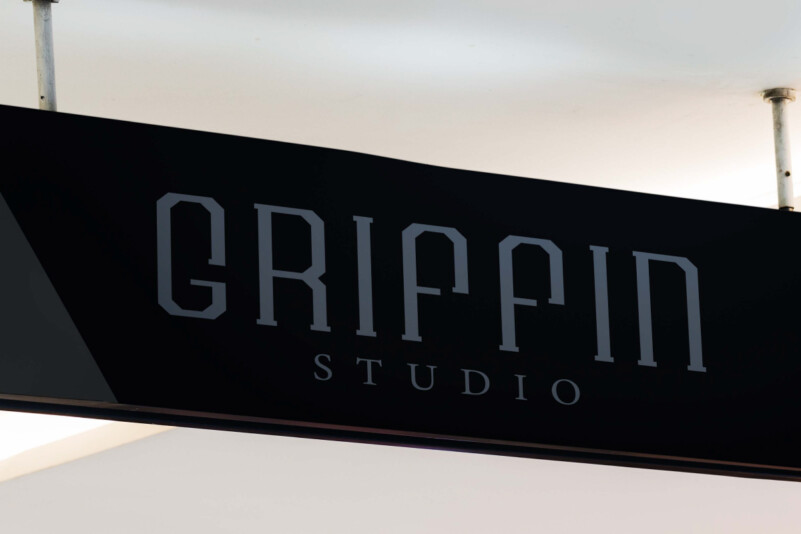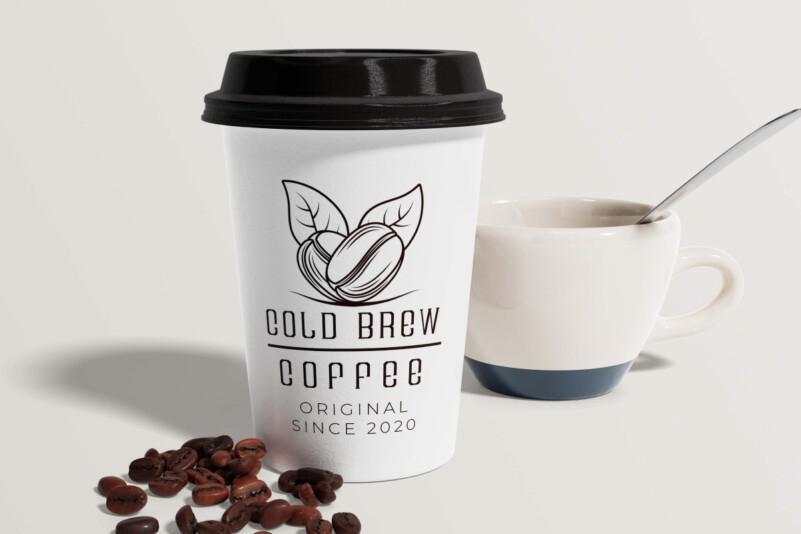
Pandeka Font
Pandeka Font is a retro serif display font with a unique look. This font bring the idea of being like an ‘old school’ typeface which has an appeal to the sporty square shape of the letter, which makes it cool on all industries such as, accessories, architect, café, fashion designer, fitness center, furniture, herbal products, interior design, movie, photography, printing, publishing, sportswear, etc.